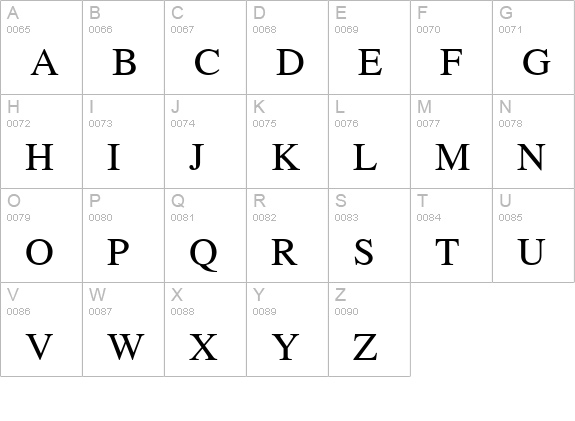
Toronto Font Details
Toronto font is a stunning display typeface that combines elegance with a touch of modernity. Its clean lines and unique letterforms make it the perfect choice for various design projects, from branding to advertising. This font exudes a sense of sophistication and professionalism, making it ideal for creating eye-catching headlines, logos, and posters. What sets Toronto font apart is not only its impeccable design but also its accessibility. It is freely available to download at FontsMarket.com, allowing designers and creatives everywhere to unleash their creativity without any limitations. With its wide range of weights and styles, Toronto font offers endless possibilities to experiment and create visually captivating compositions. The versatility of Toronto font is truly commendable. Whether used in print or digital media, this font never fails to make a bold statement. Its sleek and contemporary aesthetic effortlessly captures attention, ensuring that your message gets noticed and remembered. Toronto font is not just a typeface; it is a powerful tool that empowers designers to elevate their designs to new heights. Its clean and legible letterforms make it easy to read, even at smaller sizes, ensuring that your message is conveyed effectively. From elegant wedding invitations to modern magazine layouts, Toronto font is a versatile choice that brings sophistication and style to any project. In conclusion, Toronto font is a must-have for designers seeking a free and exceptional typeface that combines elegance with a modern twist. Its freely available download at FontsMarket.com makes it easily accessible to everyone, allowing designers to unleash their creativity without any restrictions. Add a touch of sophistication and professionalism to your designs with Toronto font, and watch as your creations come to life with its sleek and captivating aesthetic.